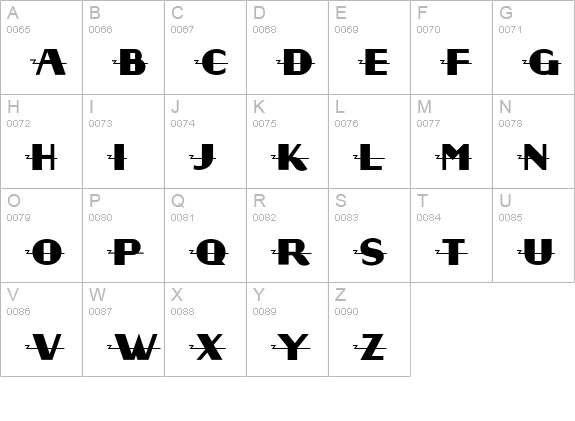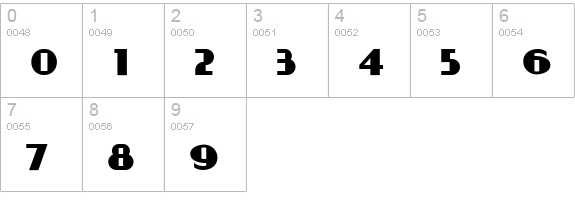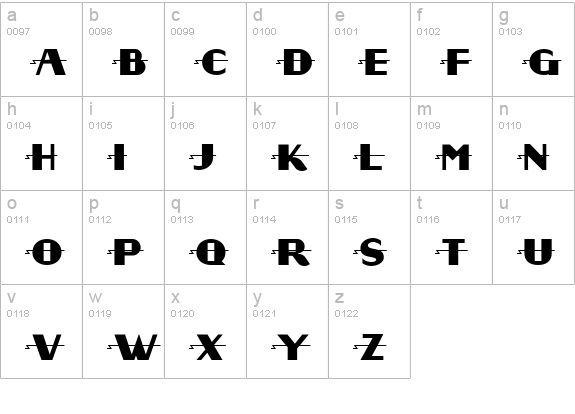
Radio Days NF font is a charming and nostalgic typeface that brings to mind the golden age of radio broadcasting. With its vintage appeal and classic styling, this font is perfect for adding a touch of old-school flair to your designs. The elegant and timeless look of Radio Days NF font makes it a versatile choice for a wide range of projects, from branding to packaging to editorial design. What makes Radio Days NF font even more appealing is that it is available for free download at FontsMarket.com. This means that you can easily add this unique and stylish font to your collection without having to spend a dime. So why wait? Give your designs a touch of vintage charm with Radio Days NF font today.